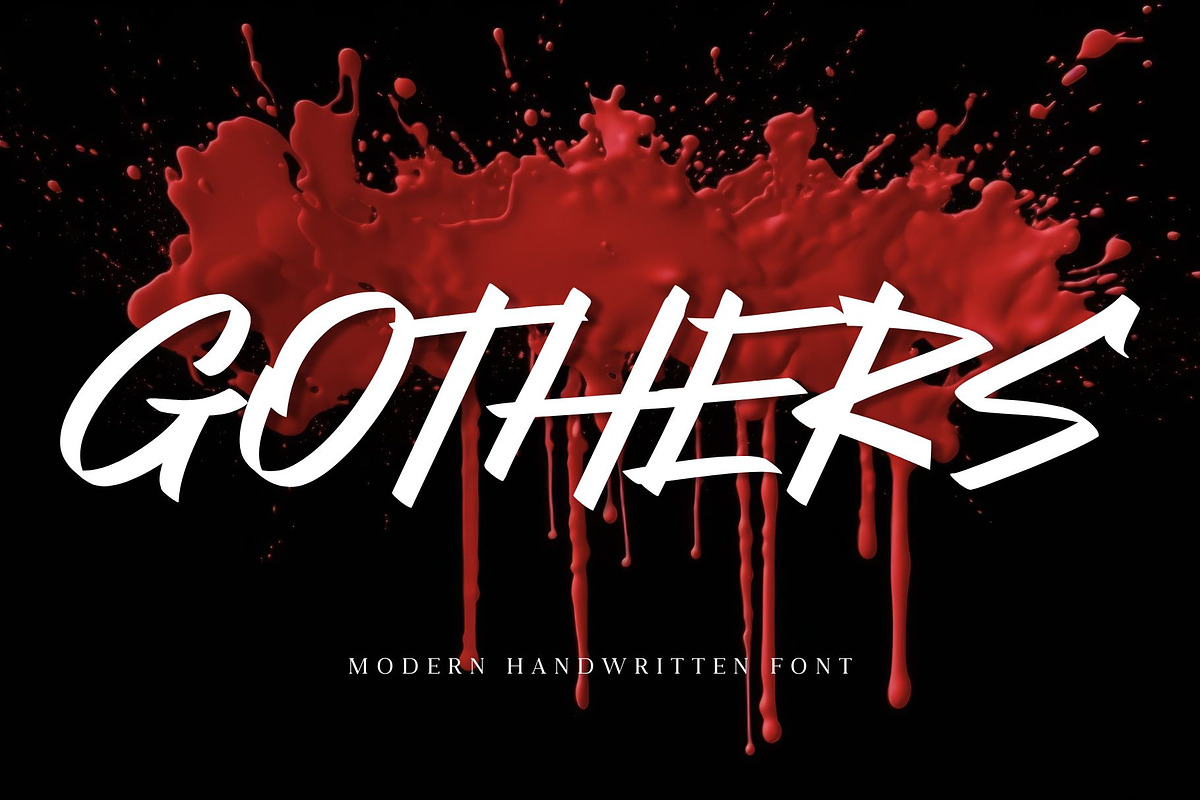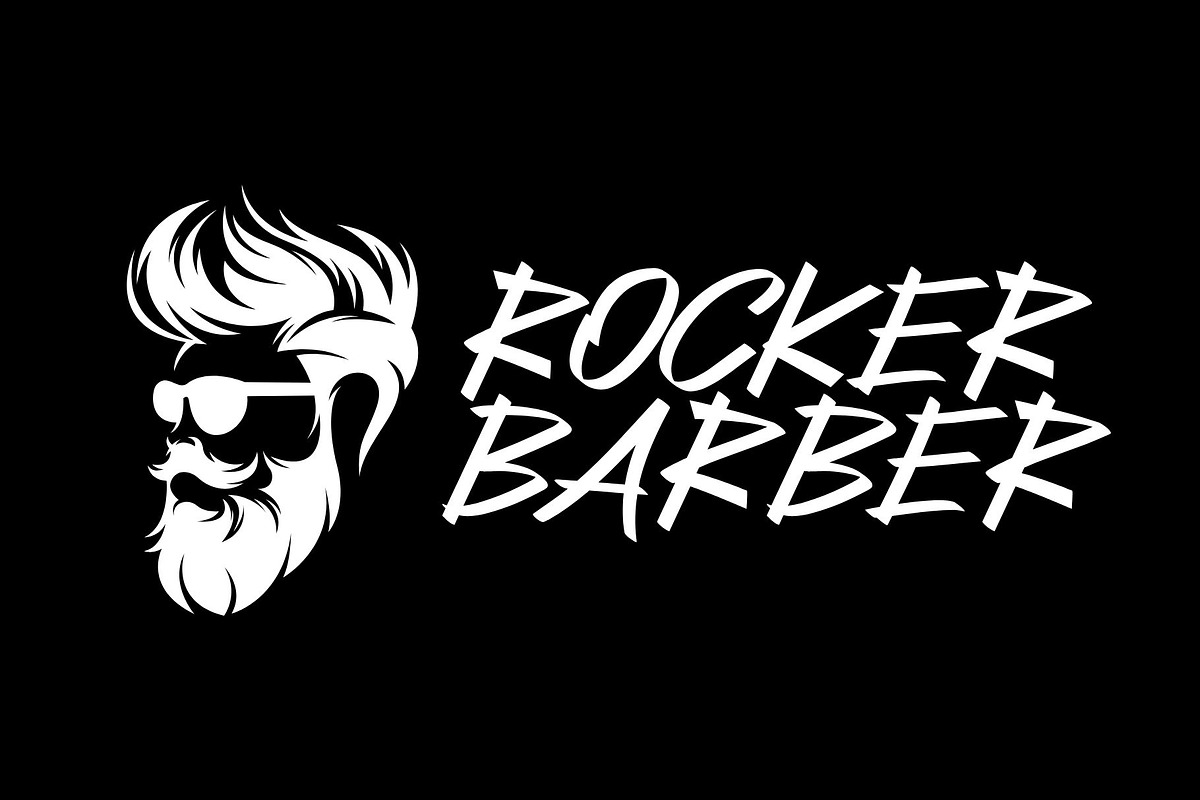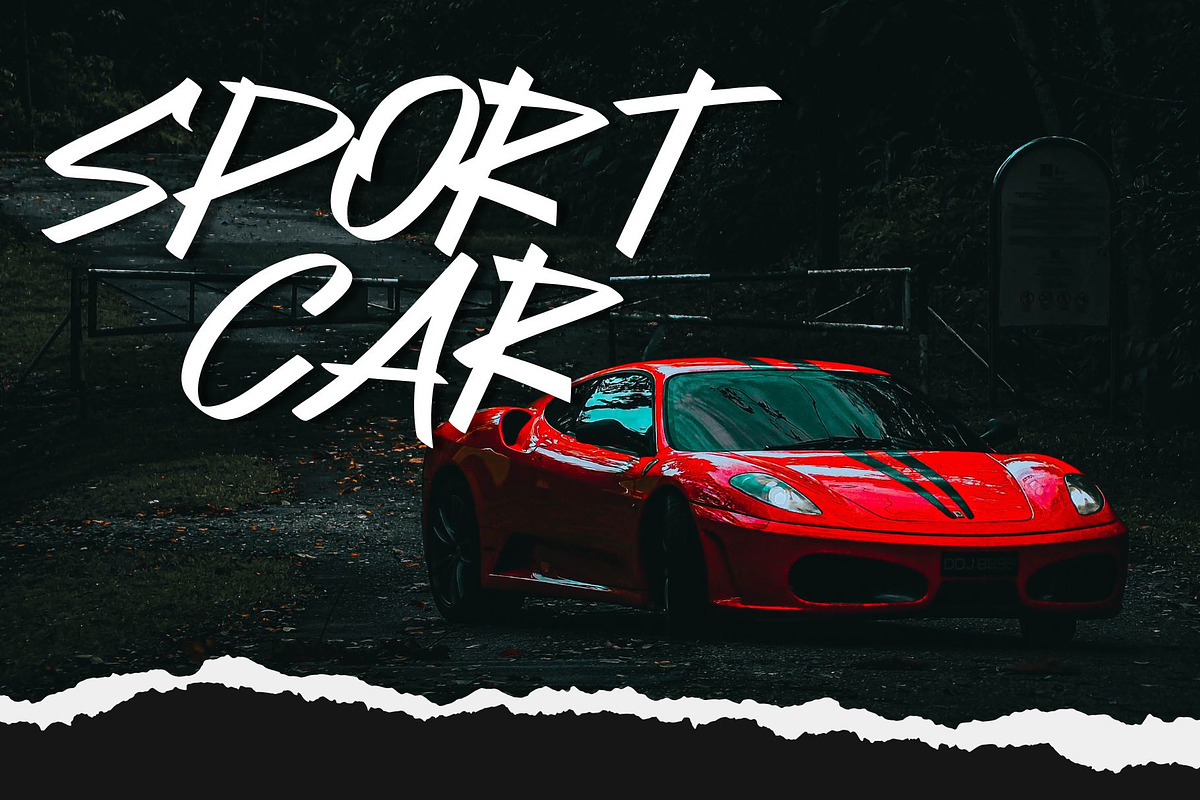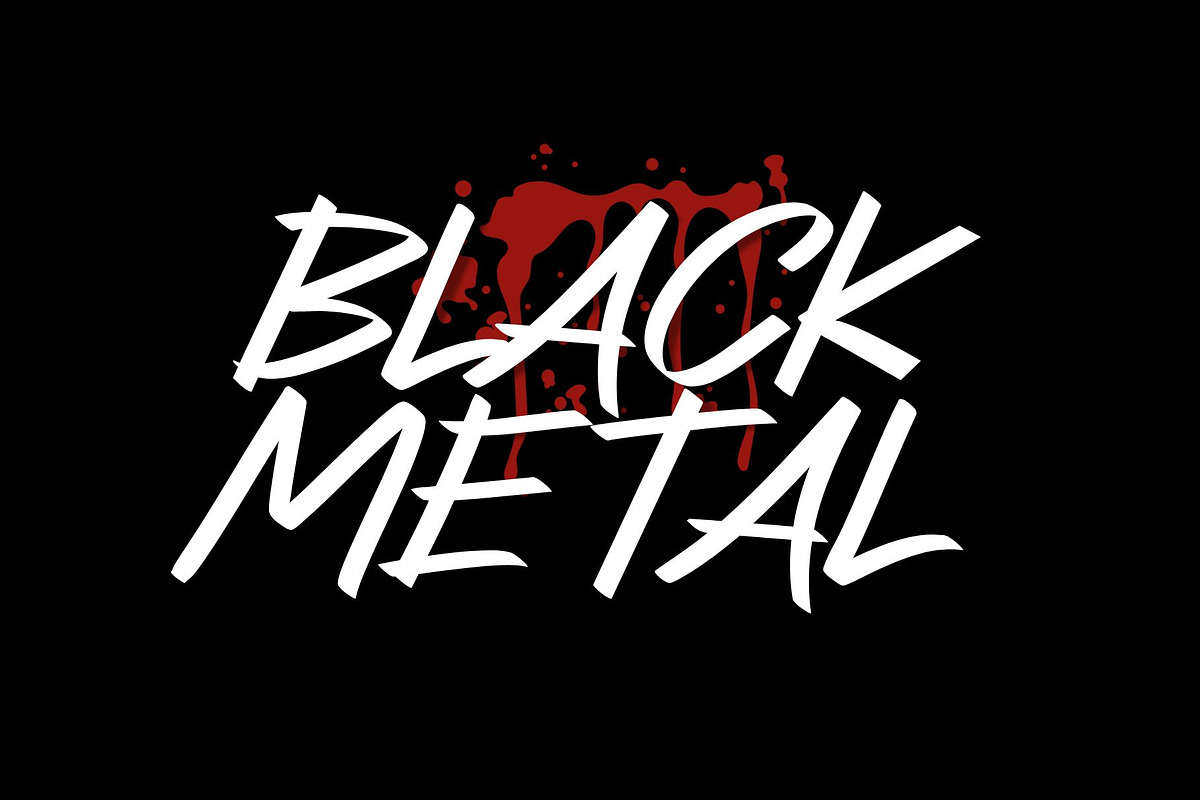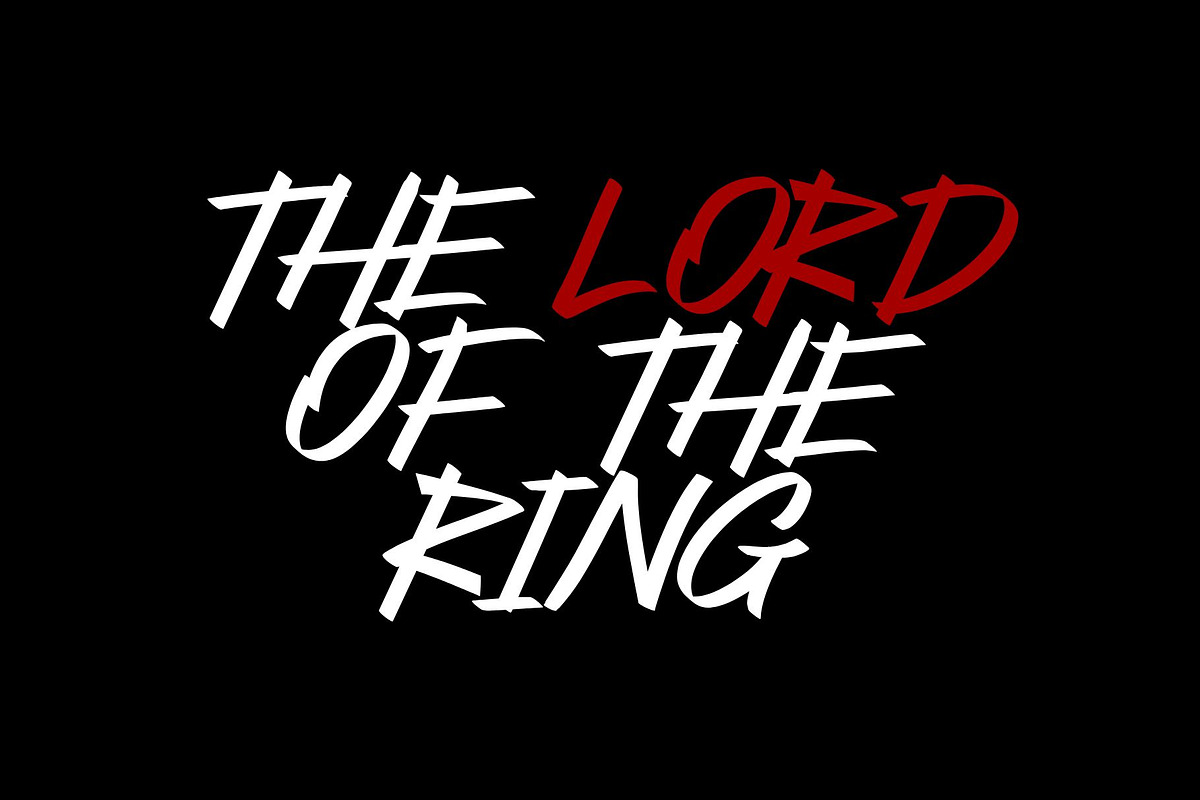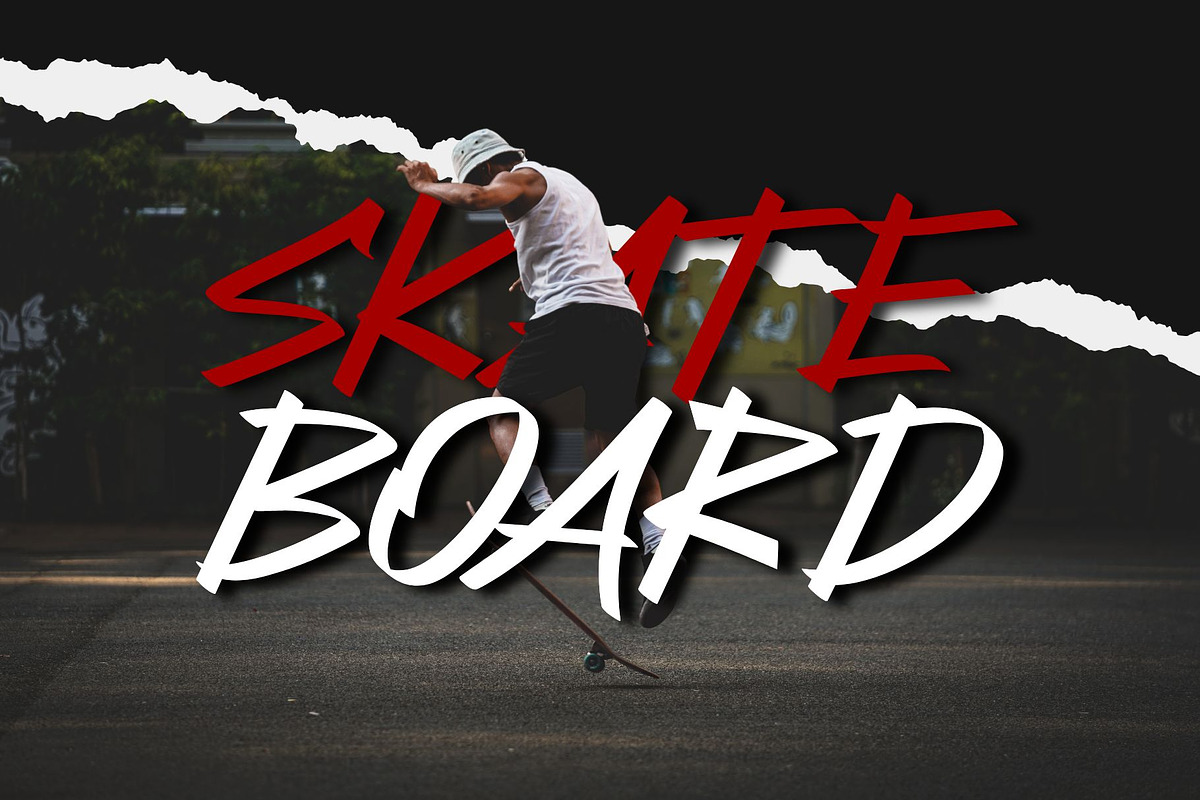
Gothers
Immerse yourself in the inherently organic allure of Gothers, a typeface that captures the essence of untouched handwriting. Adorn your designs with Gothers, a font that flawlessly replicates the raw charm and individuality found only in natural handwritten strokes. Every curve and line of this font is reminiscent of heartfelt scribbles, lending an authentic and personal touch to your creative masterpieces. Allow your ideas to flow freely with Gothers, the font designed to mirror the spontaneous beauty of natural penmanship.